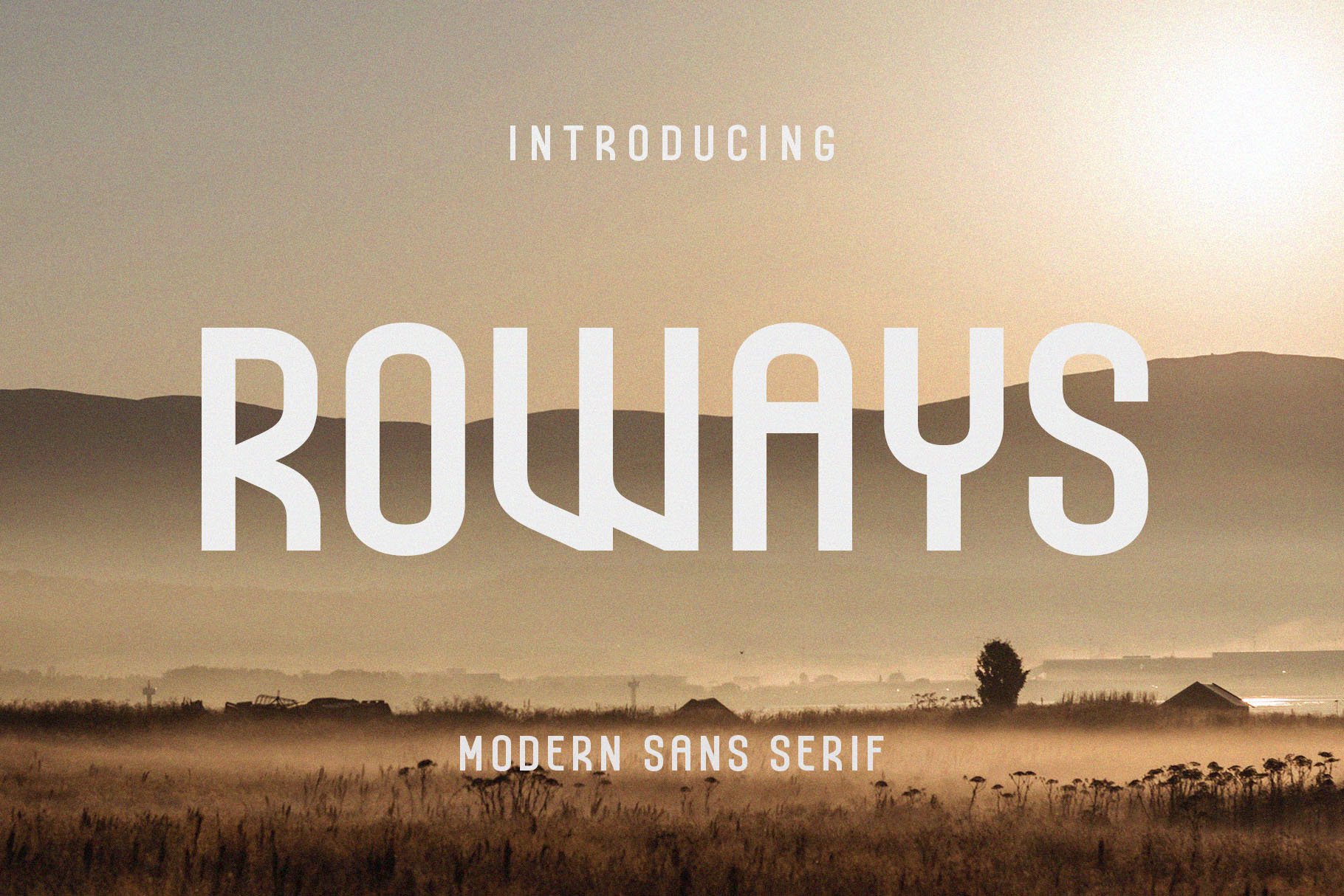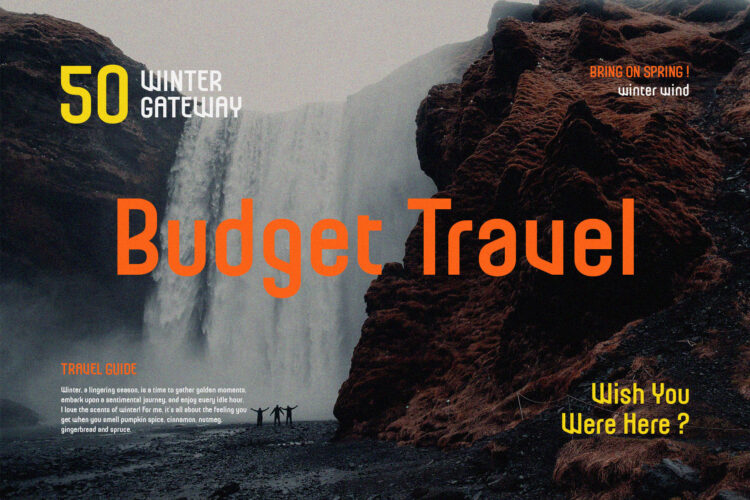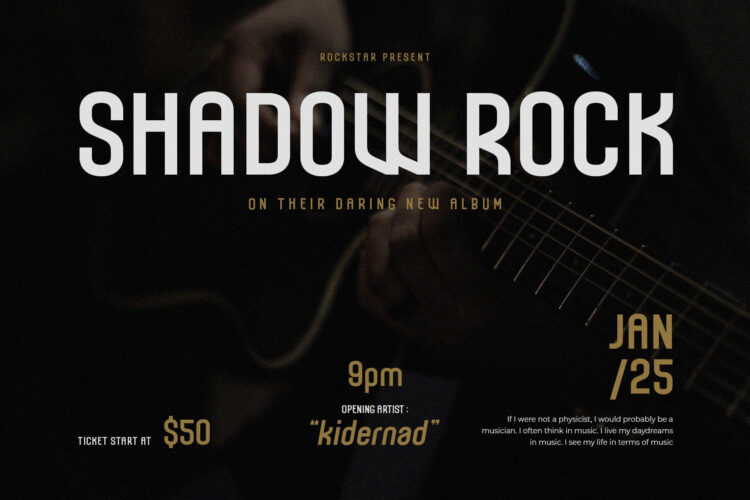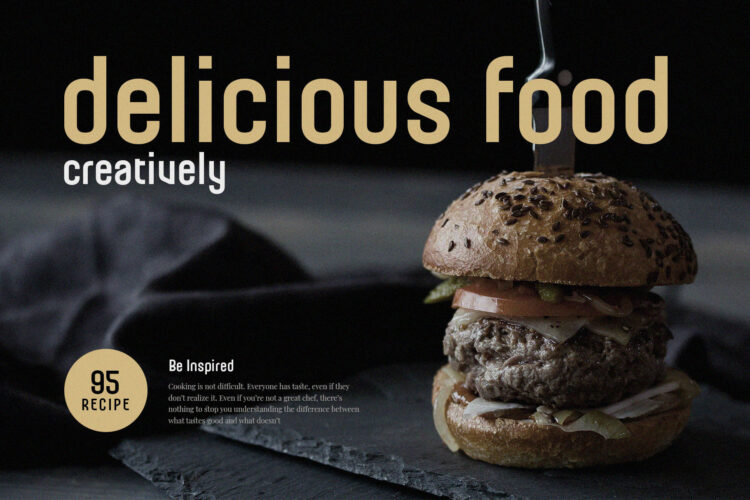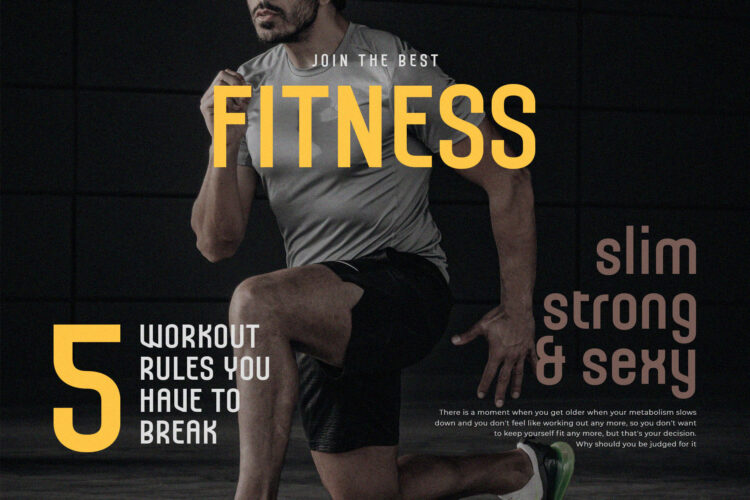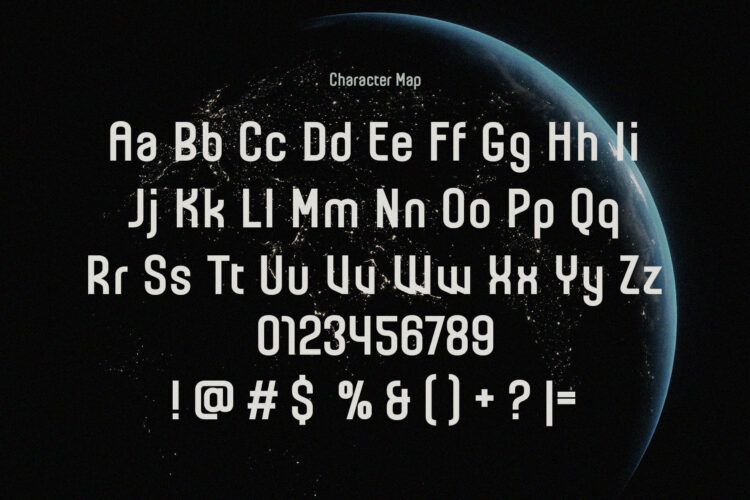
Introducing Roways Modern Sans Serif.
Roways is a modern and classy typeface, best used as a display for headings, logos, branding, magazines, product packaging and invitations. Roways come with clean lines and smooth curves give any project an extra touch of class.